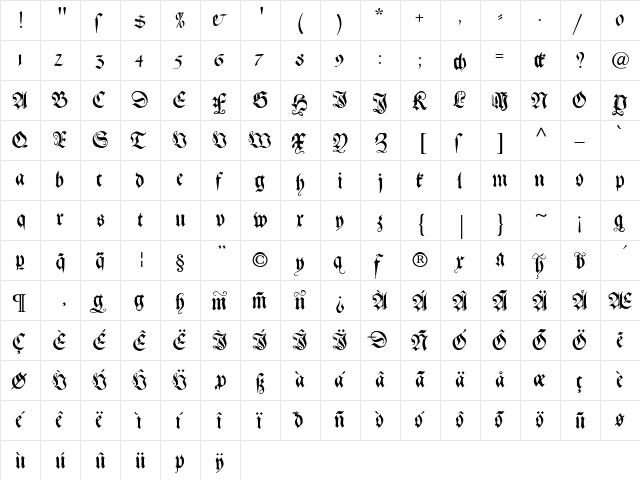
GebetbuchFraktur Regular Font Preview
GebetbuchFraktur Regular
Design Context for GebetbuchFraktur Typeface
GebetbuchFraktur draws on the rich tradition of blackletter calligraphy, with dense, angular strokes that evoke medieval manuscripts and old-world craftsmanship.
Well-suited to band logos, craft beer branding, tattoo lettering, and heritage-themed identities.
Font Pairing: Pair with a clean neutral sans-serif for body copy to let GebetbuchFraktur's character lead without overwhelming the composition.
Pro Tip: Use GebetbuchFraktur sparingly at large sizes. Even a single word set in blackletter can define the visual register of an entire design.